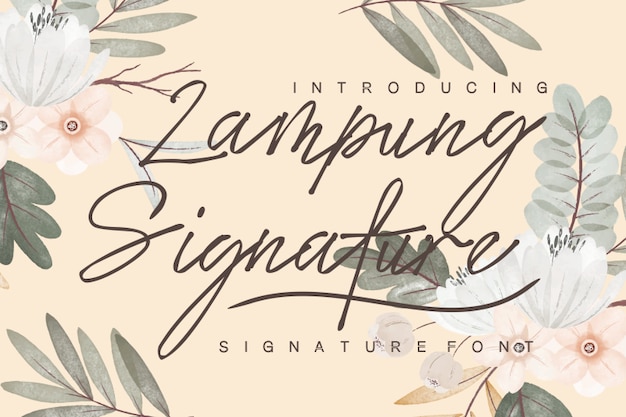
Lampung Signature
Lampung Signature Font
Where calligraphy meets the personal touch of handwritten lettering. Each stroke is a signature of elegance, capturing the essence of individuality. Perfect for adding a personal flair to your designs, it turns text into an artful journey. 'Lampung Signature' makes your words a work of personalized beauty, where every character carries the warmth and grace of a unique signature.